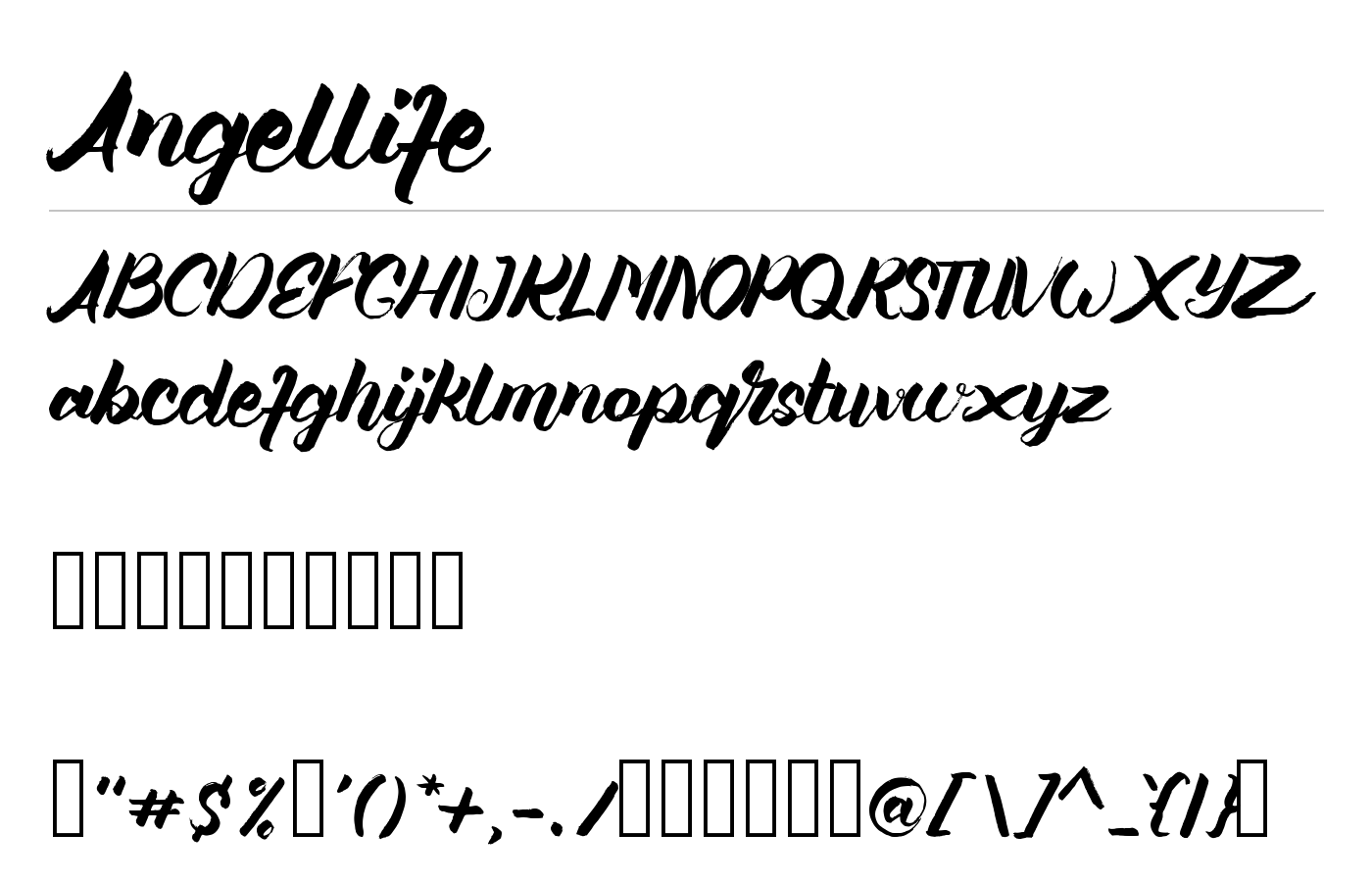
Angellife is a bold and expressive script font that captures a lively, handwritten feel with its brush-like strokes and dynamic, slightly slanted letterforms. It combines a casual elegance with strong personality, making it ideal for logos, branding, and headlines where an artistic, confident vibe is desired. This font works especially well in creative and lifestyle contexts, adding warmth and energy to any design.
Angellife Font
About Angellife Font